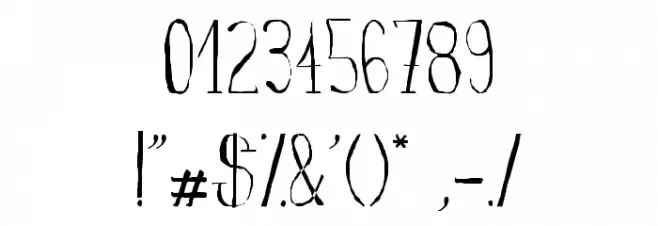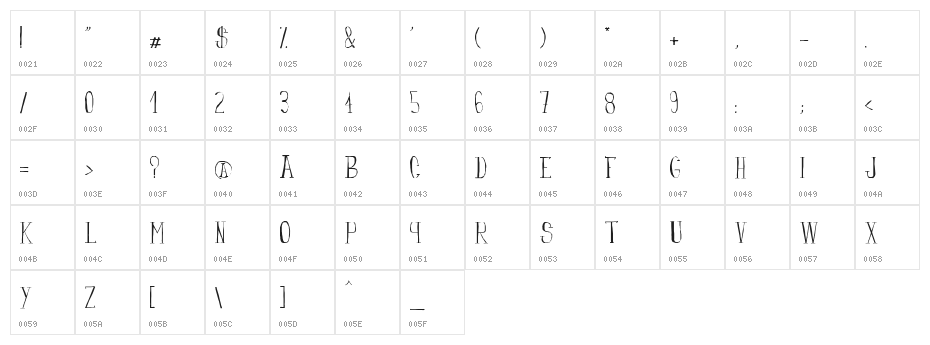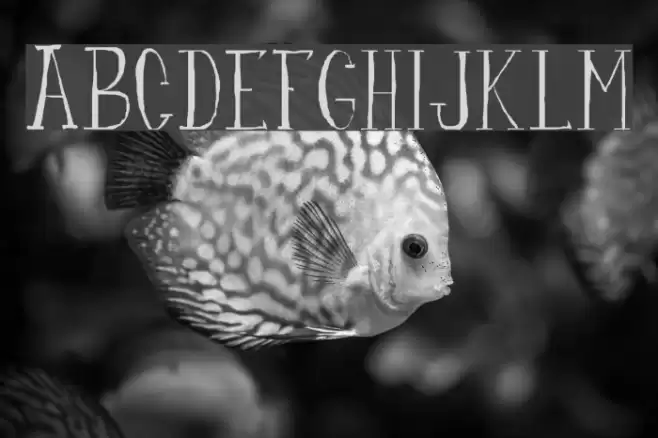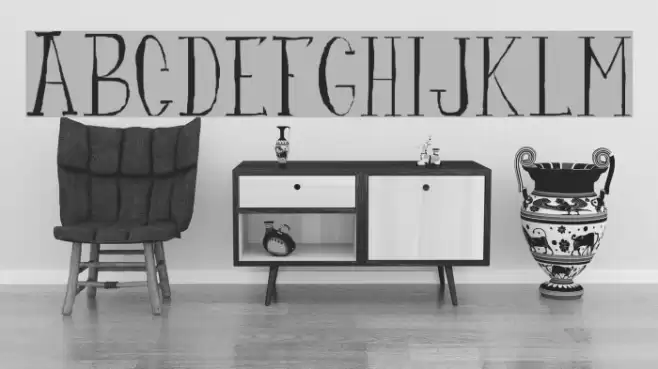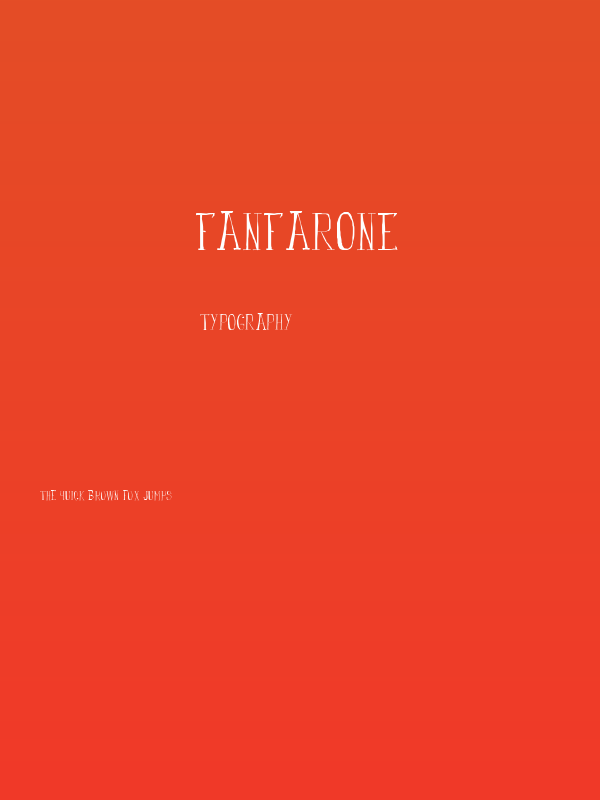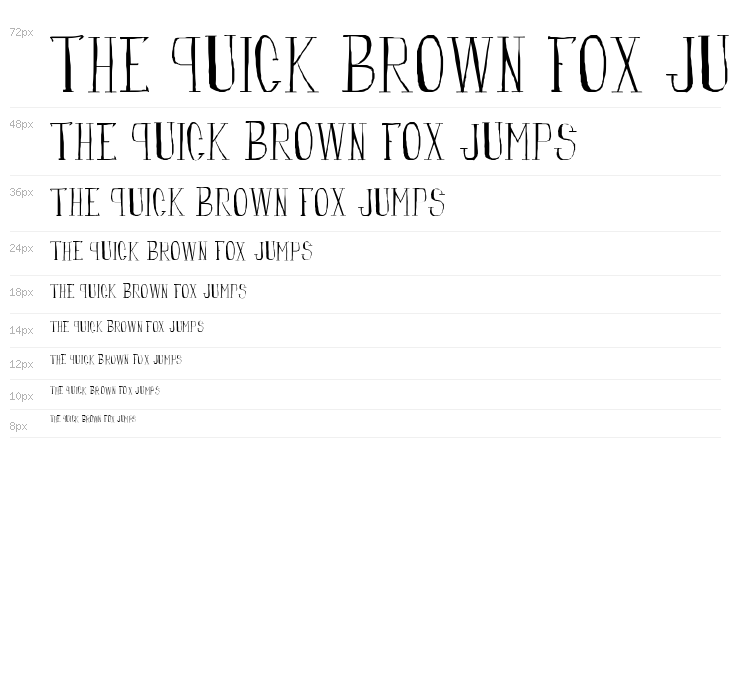
fanfarone Font
fanfarone Description
This font features a unique blend of vintage and modern aesthetics, characterized by its tall, narrow letterforms and high contrast between thick and thin strokes. The uppercase letters exhibit a distinct elegance with sharp serifs and a slightly condensed appearance, giving them a sophisticated yet approachable feel. The lowercase letters maintain the same high contrast and sharpness, ensuring consistency throughout the typeface. Numbers and special characters are designed with the same attention to detail, making them easily legible while retaining the overall style. This font's artistic flair is evident in its decorative elements, making it suitable for creative and expressive design projects.
| Overall Style | Vintage, Modern |
| Proposed Projects | Ideal for branding, poster design, book covers, and editorial layouts that require a touch of elegance and creativity. |